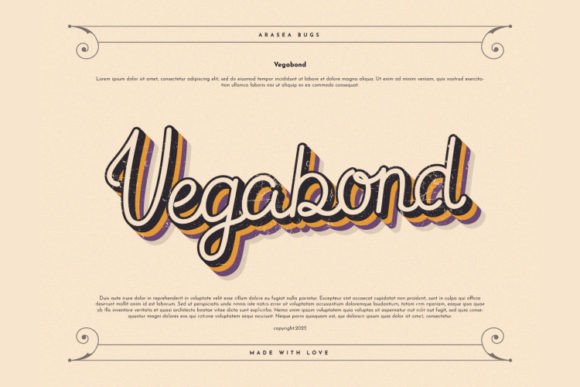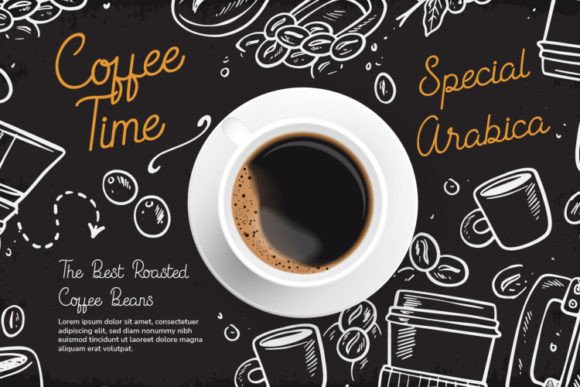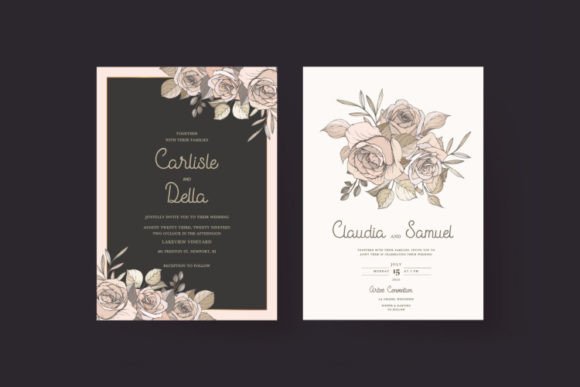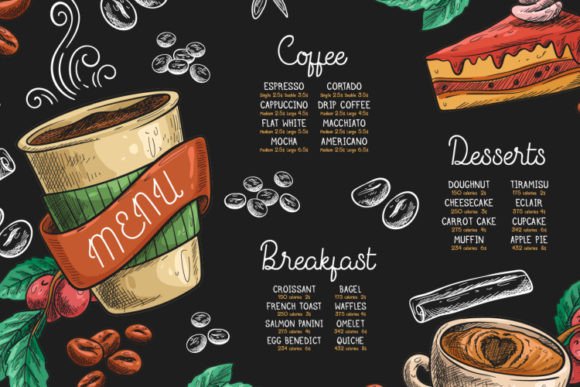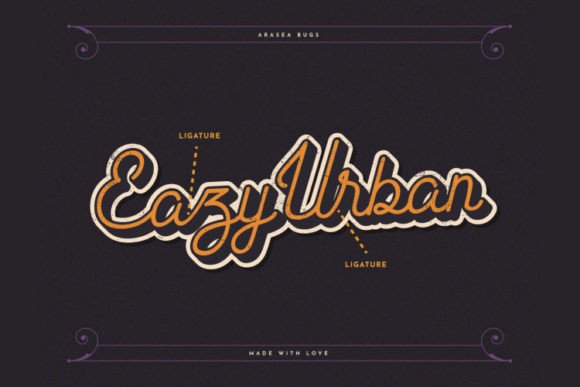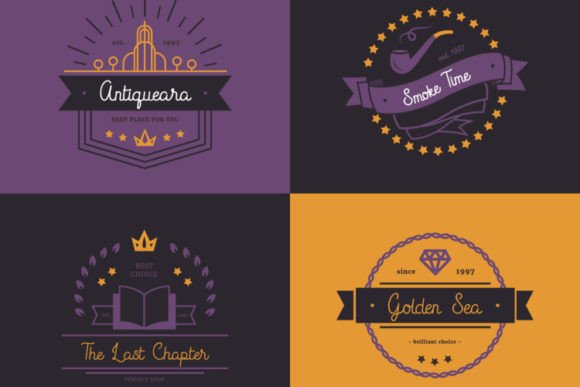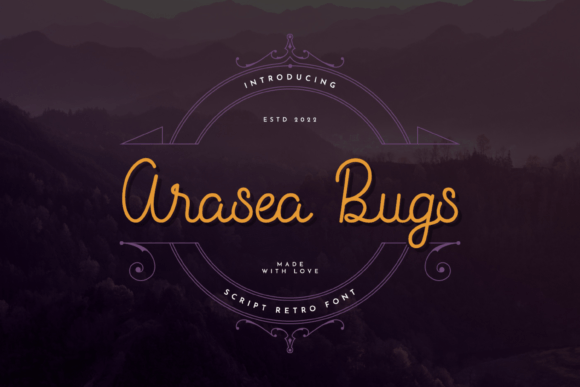
Introducing Arasea Bugs Font: The Ultimate Whimsical Handwritten Font
Are you tired of using the same old boring fonts in your designs? Look no further! Arasea Bugs Font is here to add a touch of fun and quirkiness to your projects. This handwritten font is perfect for designers and crafters who want to add a personal and playful touch to their work.
The Characteristics of Arasea Bugs Font
Arasea Bugs Font is a fun and whimsical handwritten font that is sure to capture the attention of your audience. Its unique and quirky design makes it stand out from other fonts, and its versatility allows it to be used in a wide variety of contexts. Whether you’re designing a children’s book, a craft project, or a website, Arasea Bugs Font is sure to add a touch of personality and whimsy.
What Makes Arasea Bugs Font So Special?
So, what makes Arasea Bugs Font so special? For starters, its handwritten design gives it a personal and organic feel that is hard to replicate with other fonts. Additionally, its quirky and playful design makes it perfect for projects that require a bit of humor and whimsy. Whether you’re designing for kids or adults, Arasea Bugs Font is sure to bring a smile to their faces.
The Benefits of Using Arasea Bugs Font
There are many benefits to using Arasea Bugs Font in your designs. For one, it’s a great way to add some personality and whimsy to your projects. Additionally, its versatility makes it perfect for a wide range of applications, from crafting and scrapbooking to web design and advertising. Plus, its unique design ensures that your projects will stand out from the crowd.
Arasea Bugs Font in Crafting and Scrapbooking
Arasea Bugs Font is a perfect fit for crafters and scrapbookers who want to add a personal touch to their projects. Use it to create custom journaling, titles, and captions for your scrapbook pages. You can also use it to create handmade cards, gift tags, and other paper crafts.
Arasea Bugs Font in Web Design and Advertising
Arasea Bugs Font is also a great choice for web designers and advertisers who want to add a touch of whimsy to their projects. Use it to create eye-catching headlines, titles, and captions for your website or social media graphics. Its unique design ensures that your projects will stand out from the crowd and grab the attention of your audience.
Tips and Tricks for Using Arasea Bugs Font
Here are a few tips and tricks for using Arasea Bugs Font in your designs:
- Use it in combination with other fonts to create a unique and interesting contrast.
- Experiment with different colors and textures to add depth and interest to your projects.
- Don’t be afraid to get creative and try new things – Arasea Bugs Font is a versatile font that can be used in a wide range of contexts.
Arasea Bugs Font is a fun and whimsical handwritten font that is perfect for designers and crafters who want to add a personal and playful touch to their projects. Its unique and quirky design makes it stand out from other fonts, and its versatility allows it to be used in a wide variety of contexts. Whether you’re designing for kids or adults, Arasea Bugs Font is sure to bring a smile to their faces. So why wait? Download Arasea Bugs Font today and start adding a touch of whimsy to your designs!